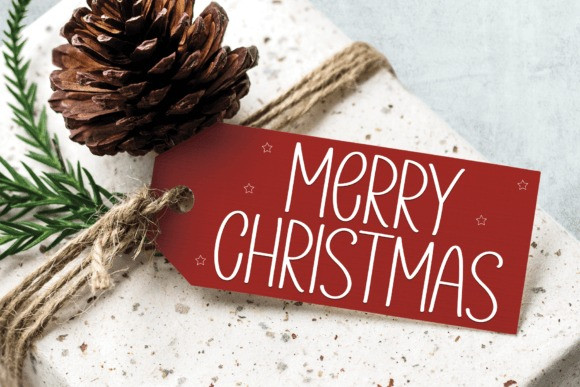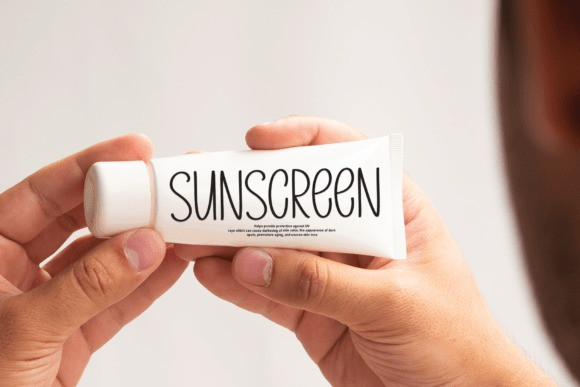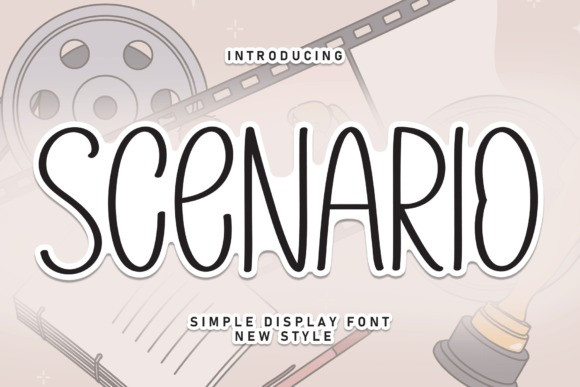
Scenario Playful Font
Scenario Playful Font is a sweet and friendly handwritten display font. Cute and fun, this font is ideal for writing wedding invitations, cards, or any other design that might need a fun touch!